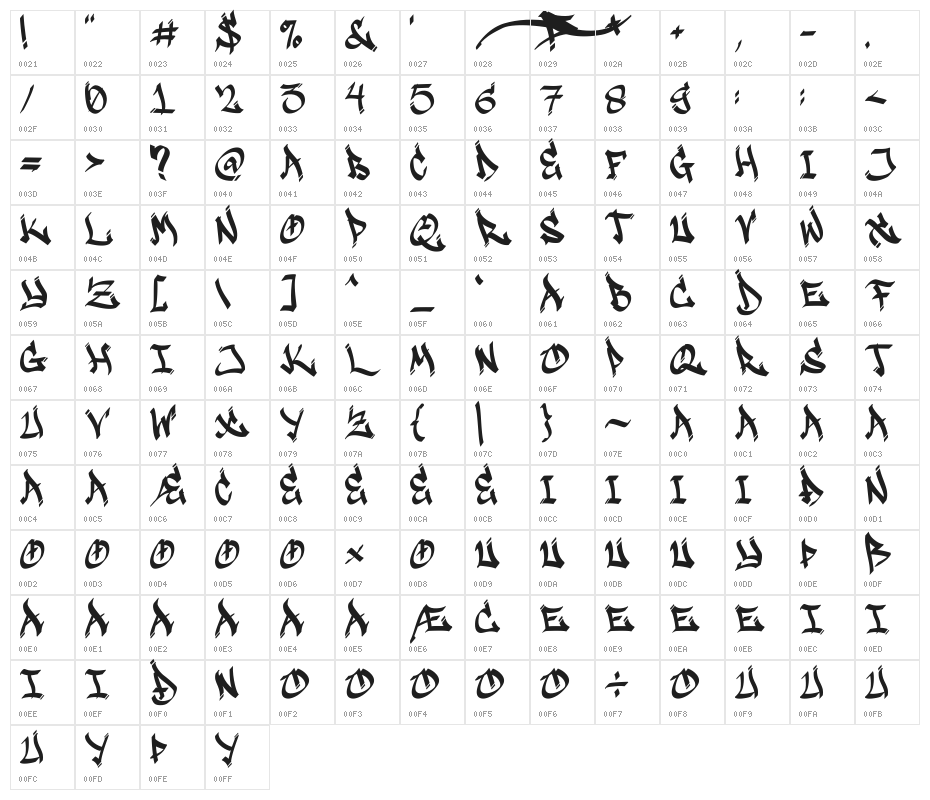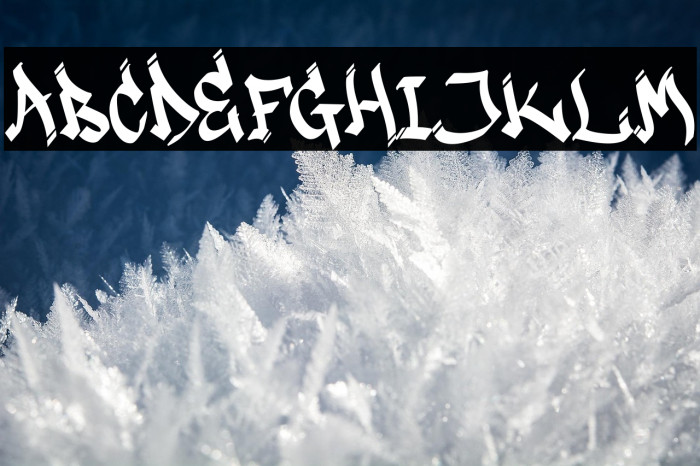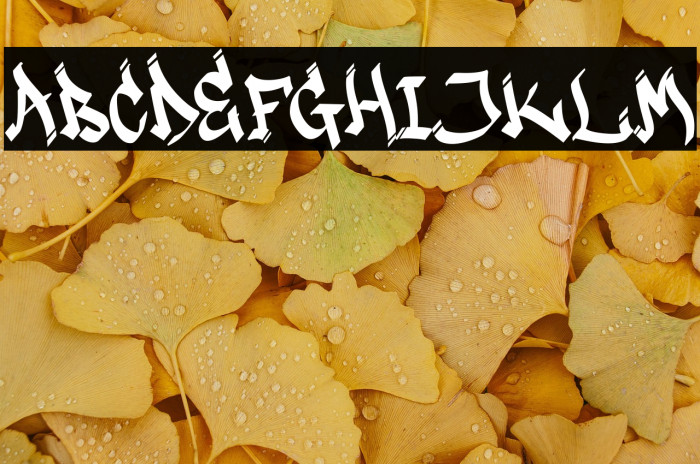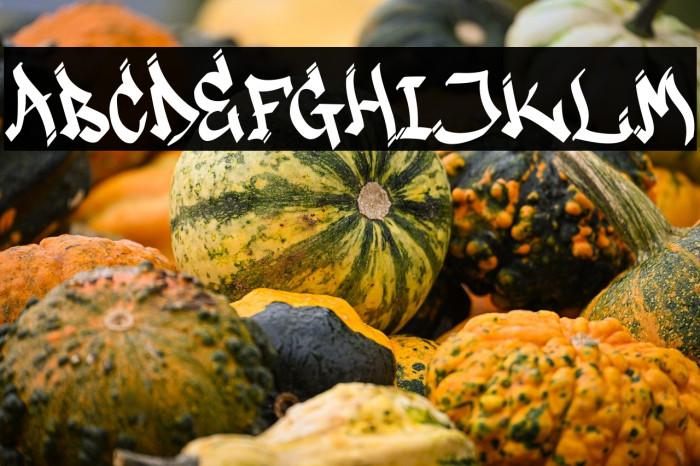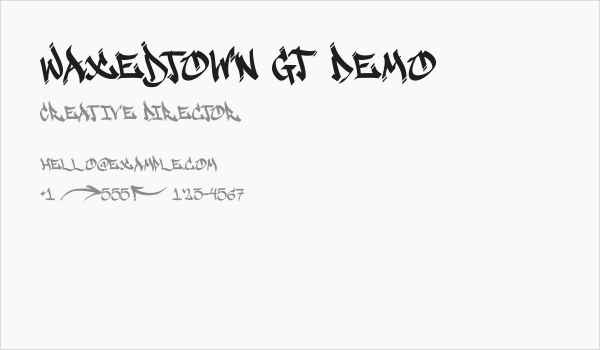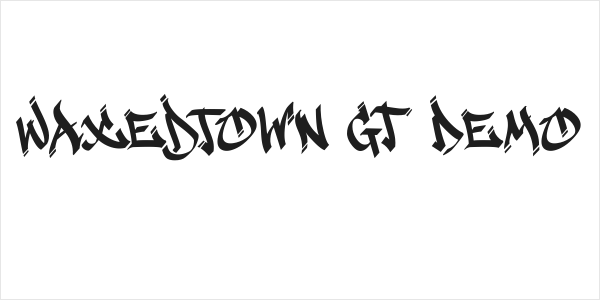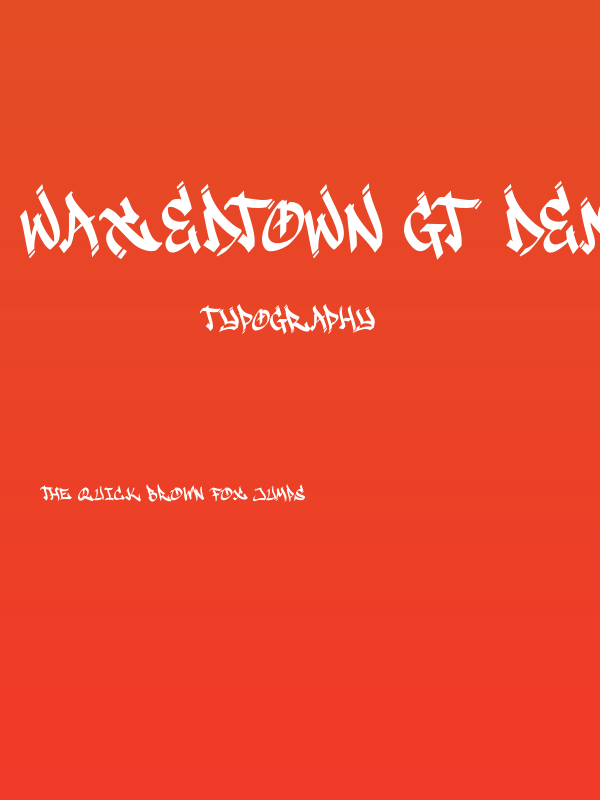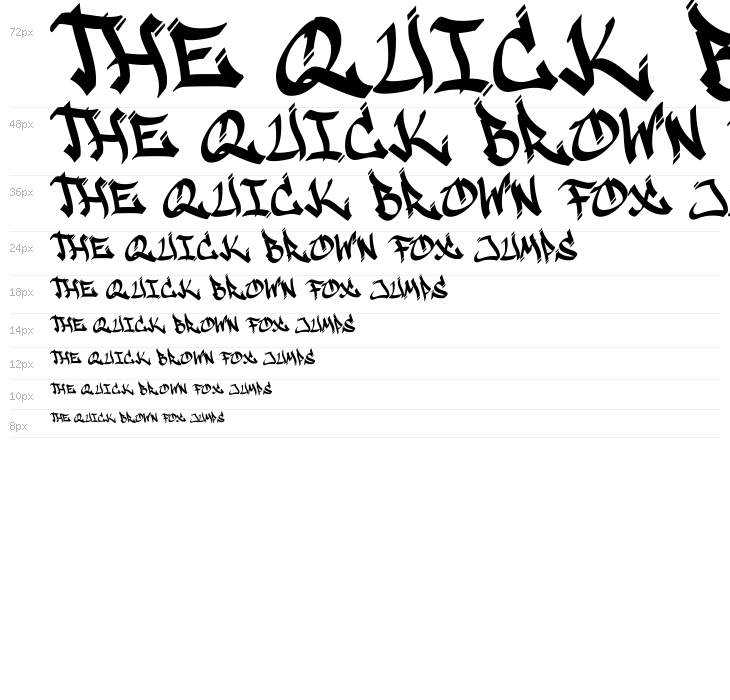
Waxedtown GT Demo Font
Waxedtown GT Demo Description
This font features a bold, dynamic style with sharp, angular lines and a graffiti-like appearance. The characters are highly stylized, with exaggerated curves and edges that give them a sense of movement and energy. The uppercase and lowercase letters maintain a consistent design, with the lowercase being slightly more compact. Numbers and special characters follow the same aesthetic, ensuring a cohesive look across all elements. The font's unique style makes it stand out, ideal for projects that require a strong visual impact.
| Proposed Projects | Perfect for street art designs, urban-themed posters, music album covers, and edgy branding projects. |